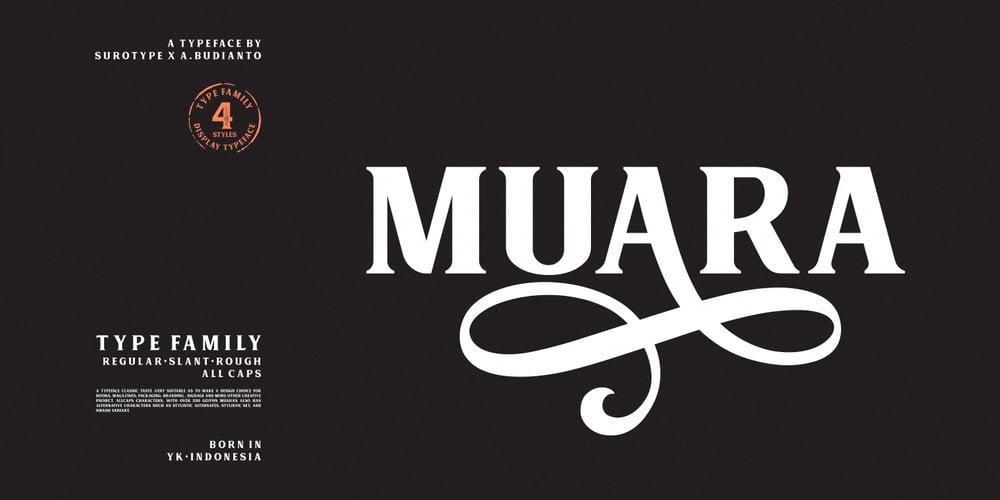
Muara Font Family was designed by Adil Budianto and published by Surotype. Muara contains 4 styles and family package options. A typeface with a classic look, very suitable to make a design choice for books, magazines, packaging, branding, signage and other creative projects. All-caps characters, with over 330 glyphs, MUARA’s also has alternative characters such as Stylistic Alternates, Stylistic Set, and Swash variant. To enable the OpenType Stylistic alternates, you need a program that supports OpenType features such as Adobe Illustrator CS, Adobe Indesign & CorelDraw X6-X7.